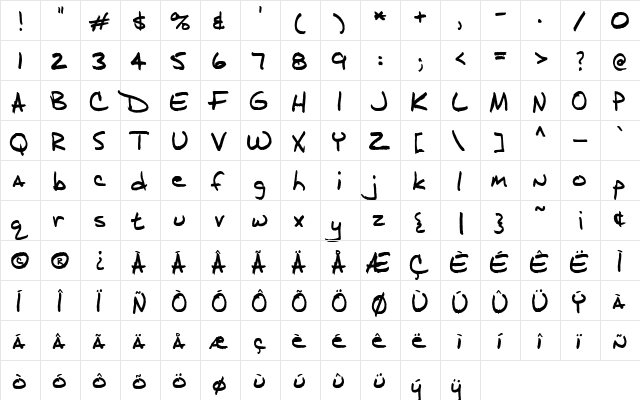
j.d. Regular
Design Context for j.d. Typeface
j.d. is a composed and adaptable typeface that performs quietly and consistently across a wide range of design contexts.
Pro Tip: Pair j.d. with a font of contrasting weight or personality to build a more expressive typographic hierarchy.